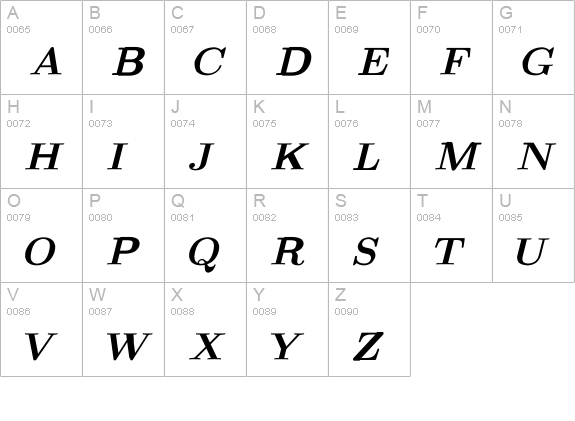
Introducing CM_Math ItalicBold, a versatile and stylish font designed for mathematical and scientific purposes. This unique font combines elegant italics with bold accents to create a modern and professional look. Perfect for academic papers, textbooks, presentations, and more, CM_Math ItalicBold offers a sleek and polished appearance that enhances readability and clarity in complex mathematical equations and formulas. The best part? CM_Math ItalicBold is completely free to download at FontsMarket.com! Take advantage of this incredible offer and elevate your mathematical and scientific projects with the sophisticated charm of CM_Math ItalicBold. Download now and experience the power of this exceptional font for yourself.